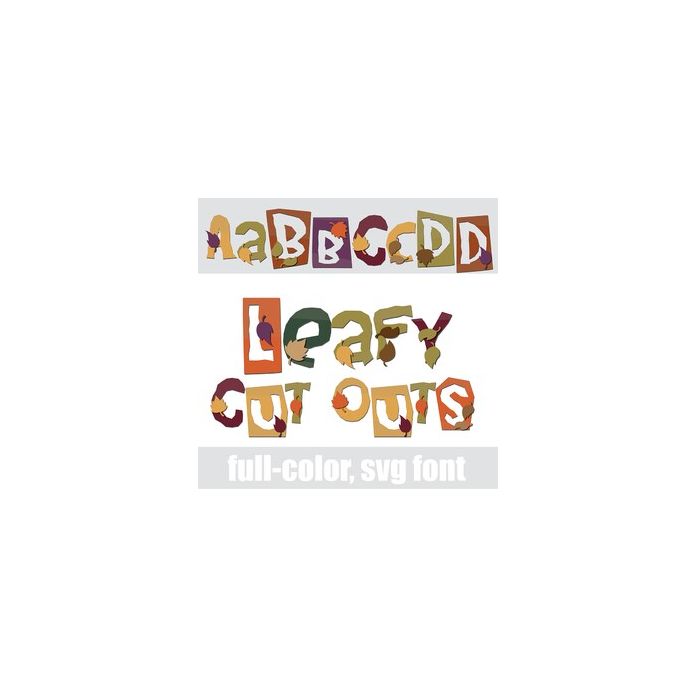
This full-color font looks like construction paper cut-outs in an autumn color palette and leaves. There is an alt case w/ additional colors you can access through your system or Silhouette's glyph map.